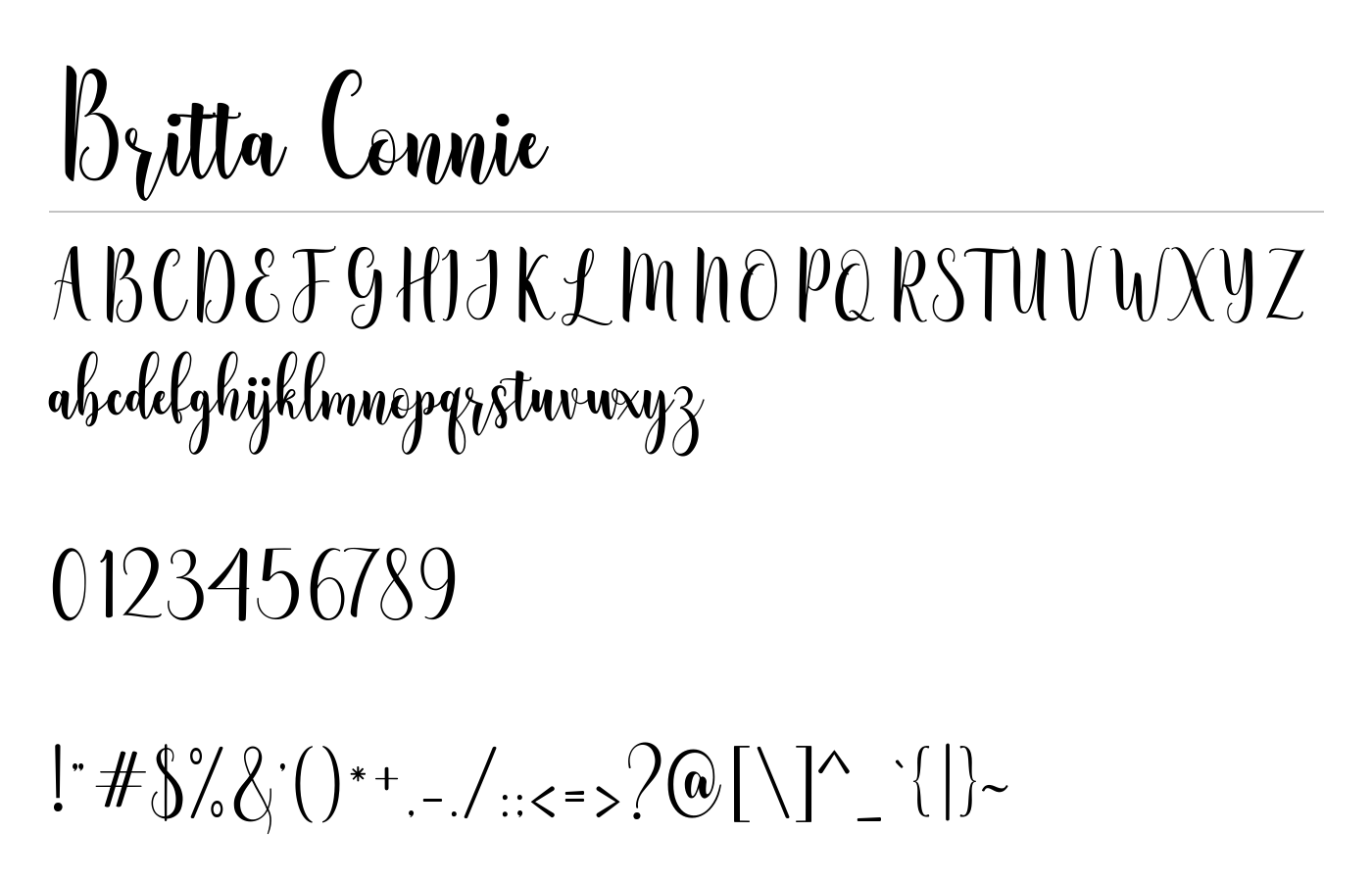
Britta Connie is a playful and elegant script font with a charming handwritten feel, featuring fluid strokes and delicate swashes that add a touch of sophistication. Its tall, narrow letterforms with smooth curves and moderate stroke contrast make it perfect for invitations, branding, and creative projects seeking a stylish, personal touch. This font works beautifully in headlines and decorative text where a warm, inviting aesthetic is desired.
Britta Connie Font
About Britta Connie Font